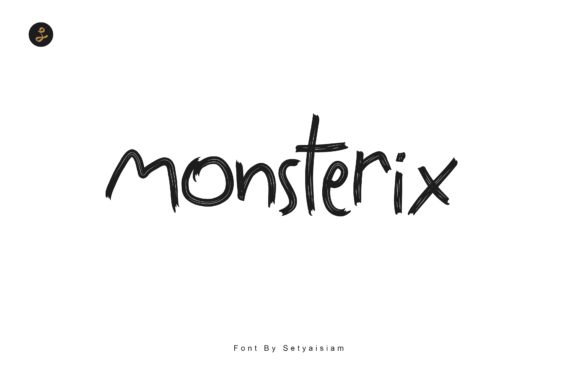
Prepare yourself for a visual feast with Monsterix Font, the awe-inspiring script font meticulously crafted by the talented setyaisiam. Let your imagination run wild as you explore the infinite creative possibilities this exquisite font has to offer.
Dive into the depths of Monsterix Font's captivating handwritten characters, each stroke infused with a raw, emotional energy that breathes life into your designs. Its natural, organic flow mimics the fluid movements of a skilled calligrapher's hand, evoking a sense of authenticity and artistry.
With Monsterix Font, turn your words into mesmerizing works of art. Its striking lines and elegant curves create a visual symphony that commands attention and leaves a lasting impression. Whether you're designing logos, crafting social media posts, or creating eye-catching web designs, Monsterix Font is your secret weapon to captivate your audience.
Harness the power of Monsterix Font to bring your projects to life with an unparalleled level of sophistication. Whether you're a seasoned graphic designer or just starting your creative journey, this font is your passport to a world of limitless artistic expression.